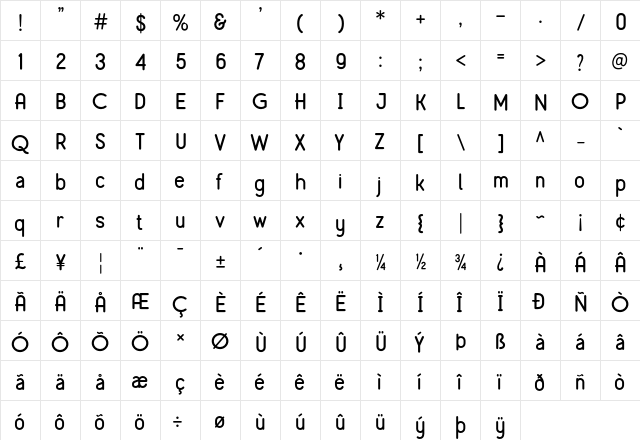
Mirandah Normal Regular
| Foundry | Arterfak Project |
| Designer | R A M Z |
Design Context for Mirandah Normal Typeface
Mirandah Normal takes a measured approach to typography — its balanced proportions and neutral character make it a reliable workhorse for both digital and print work.